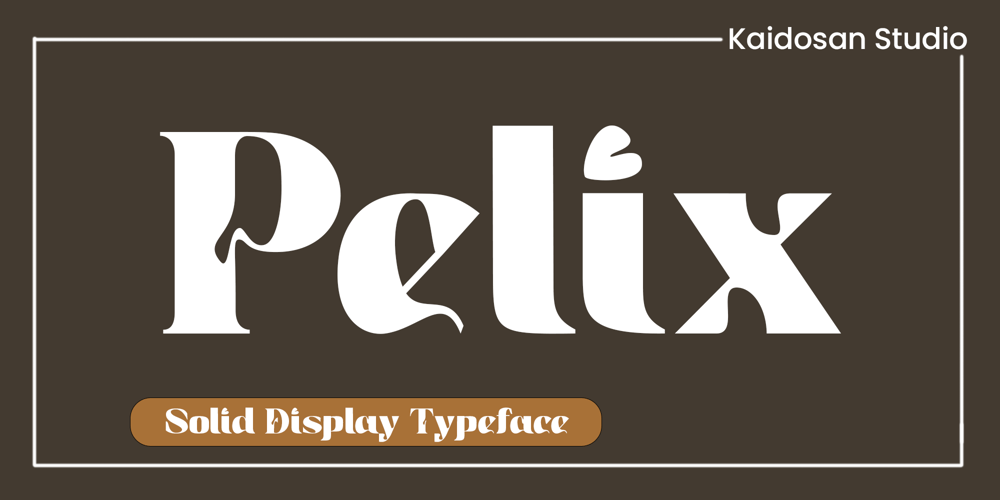
Pelix Font Family was designed by Muhammad Ansari and published by Kaidosan. Pelix contains 1 styles and family package options. Pelix is the top choice for designers looking to blend tradition with stunning creative flair. With its intricately carved formal character and flowing, sensual inner form, Pelix creates a captivating contrast harmony. Every detail sparks inspiration, inviting us on a journey from the ordinary to the extraordinary.It’s designed specifically for visionary designers and entrepreneurs who appreciate classical beauty yet refuse to compromise on personal touch and warmth in their work.